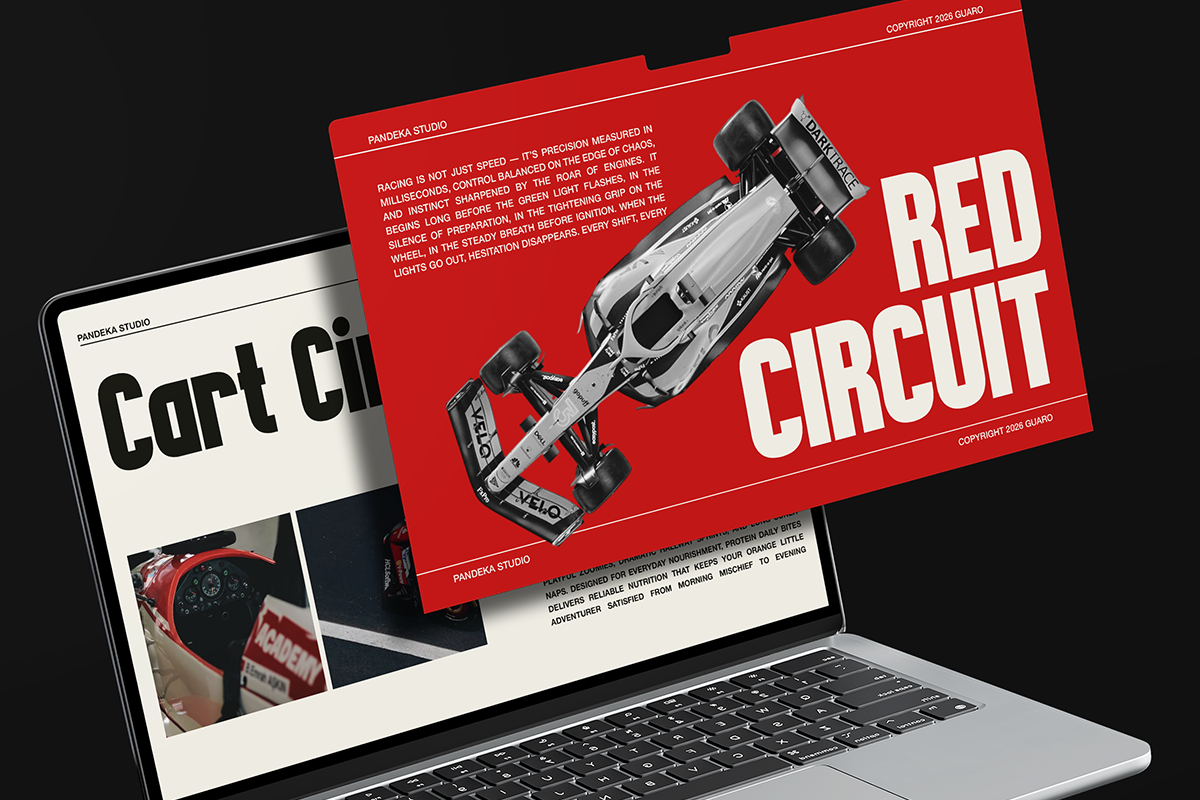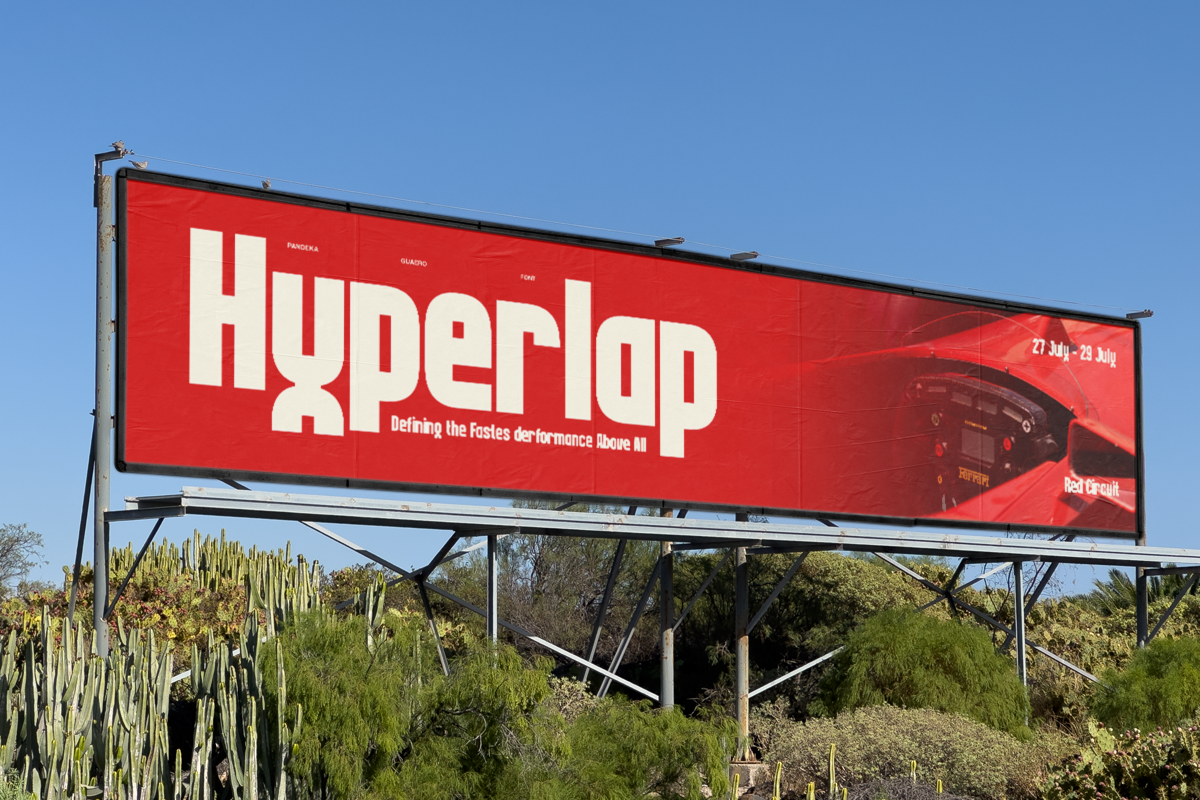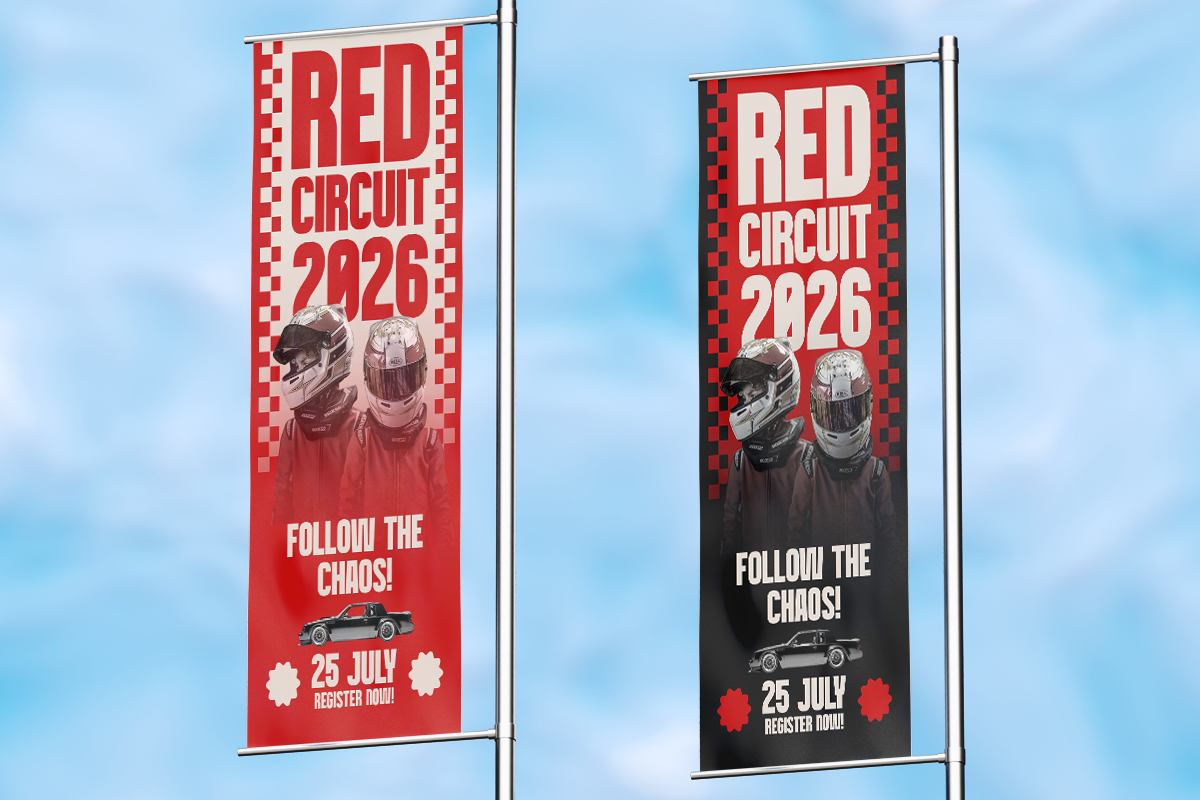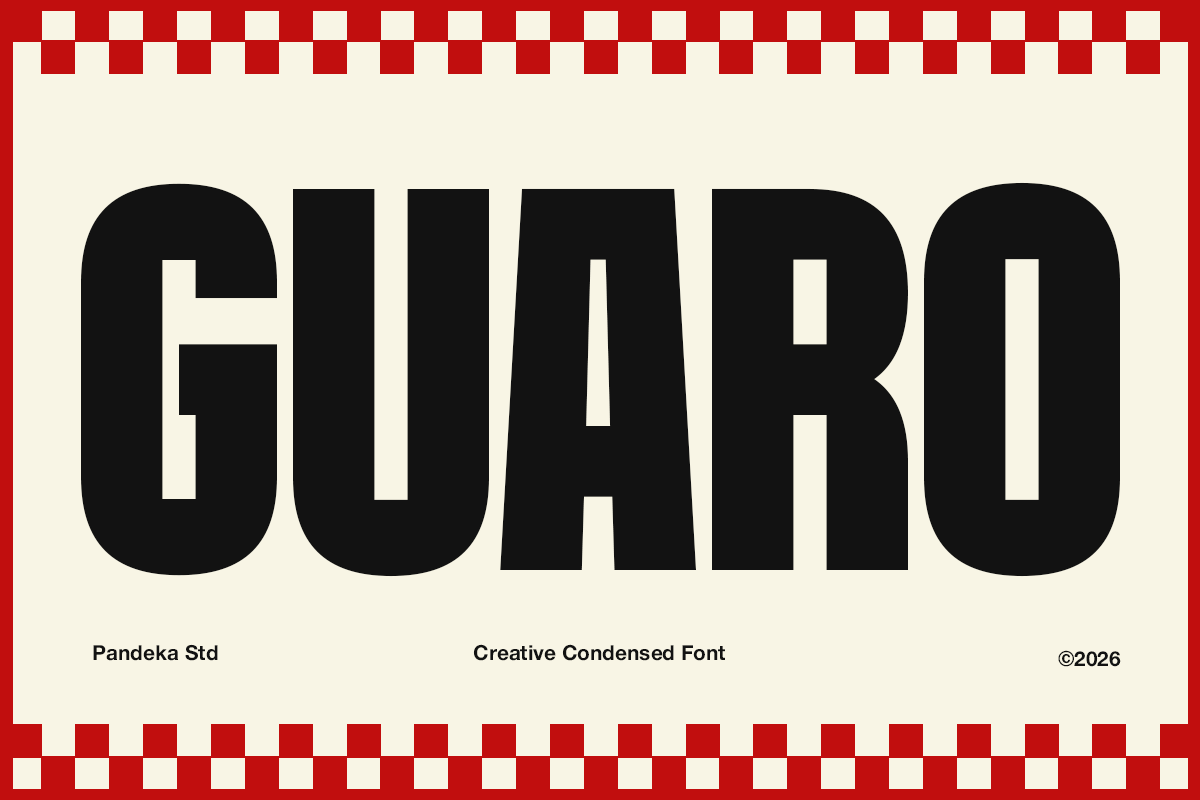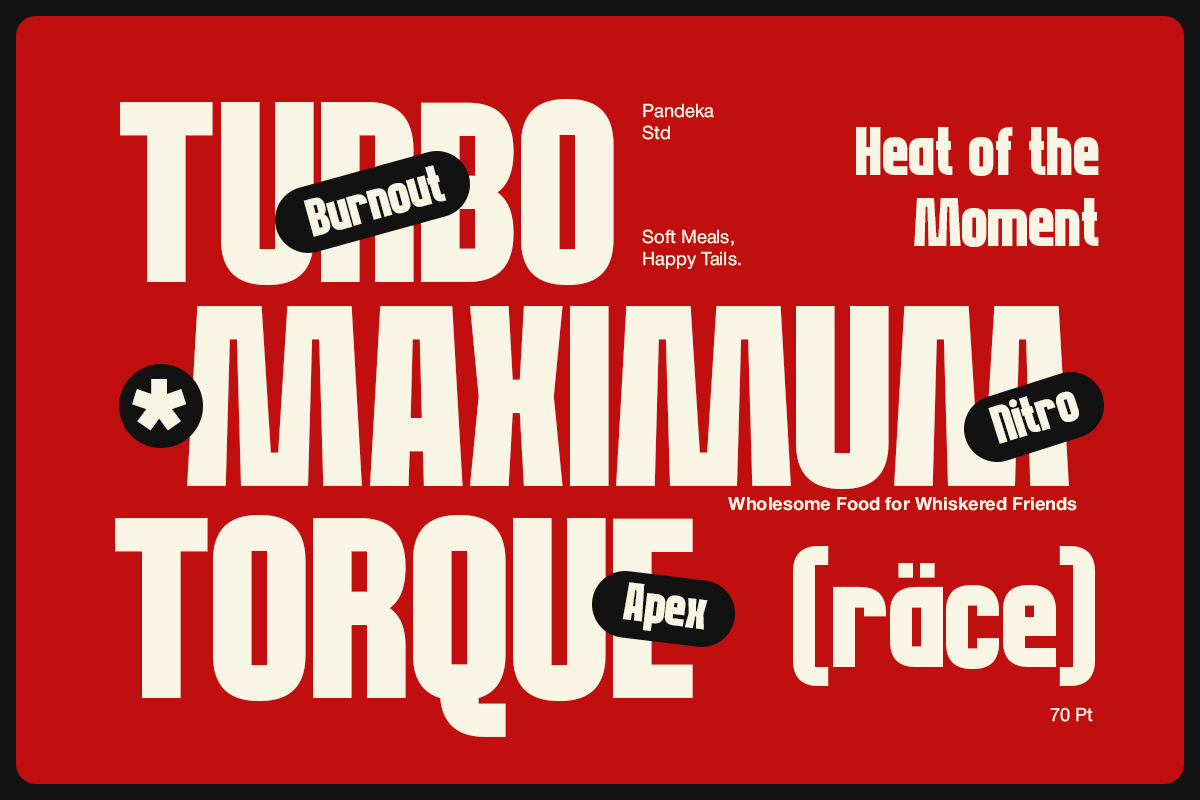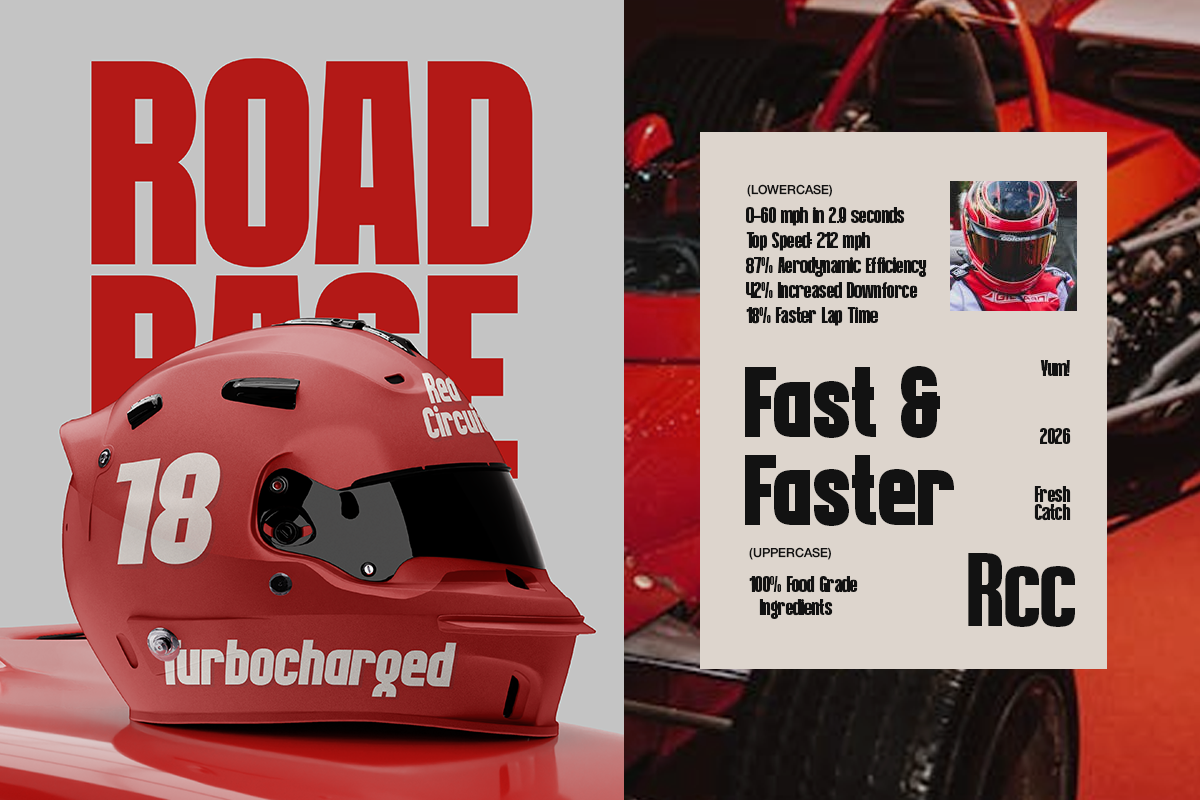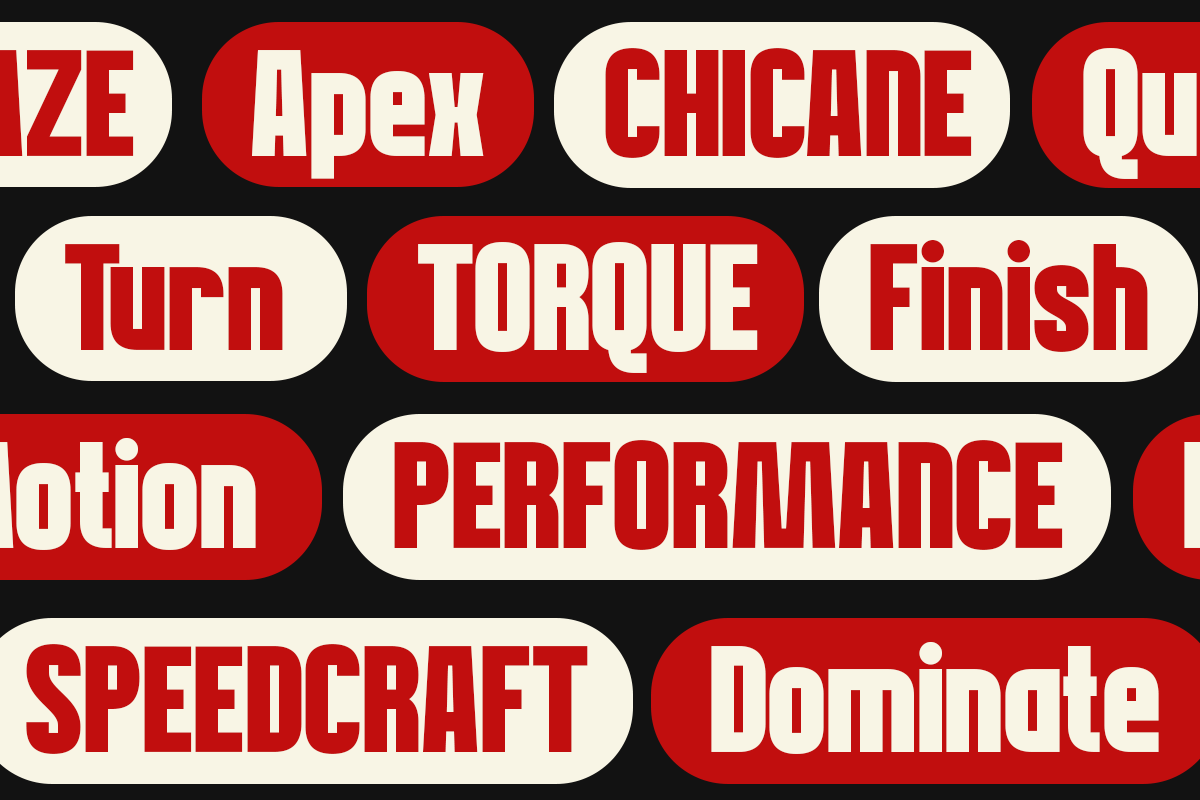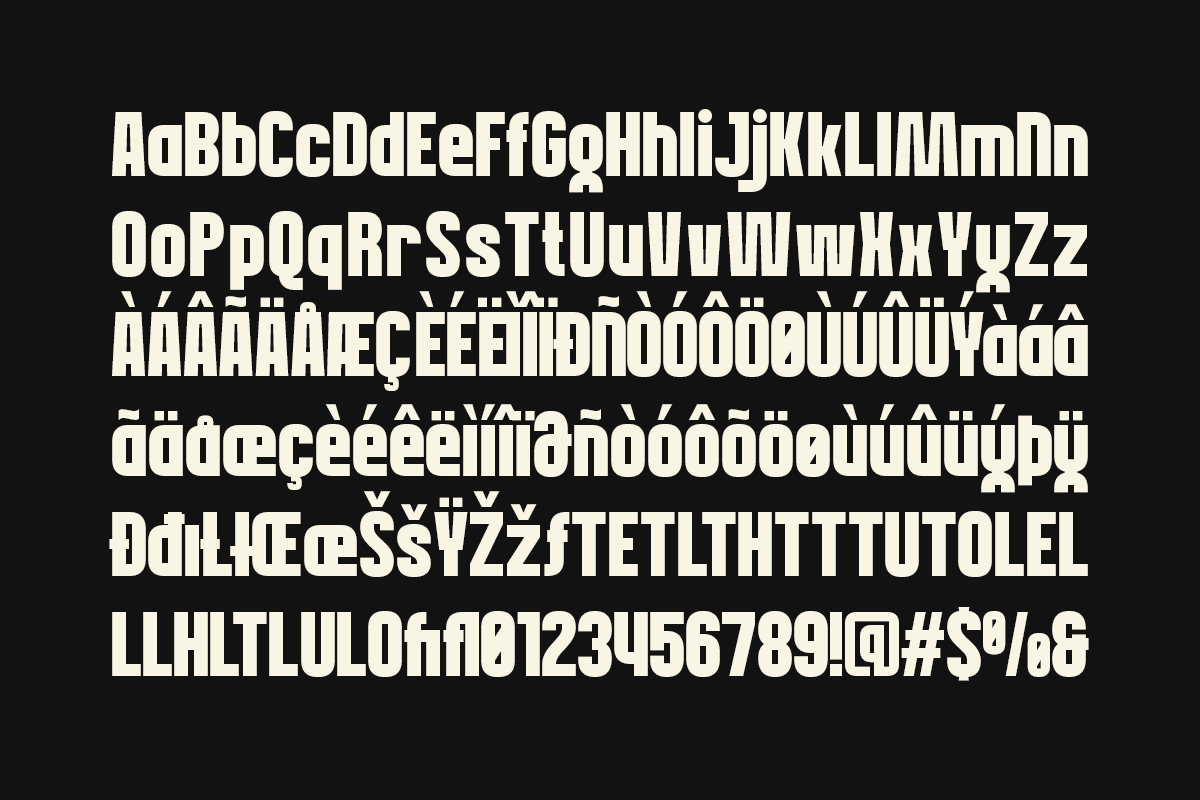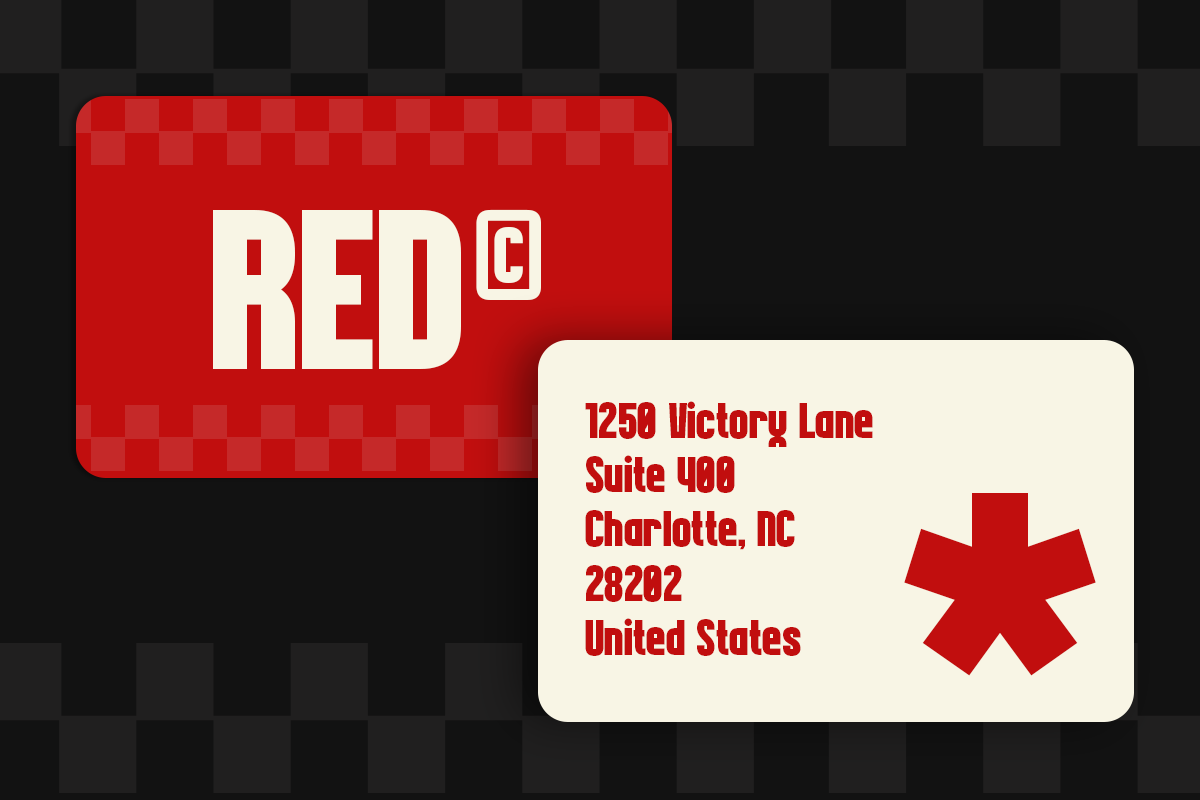
Guaro - Bold Sport Condensed Font
Guaro is a bold sport condensed font designed to deliver maximum impact and high-energy visuals. With its tall proportions, compact structure, and strong letterforms, it creates a powerful and dynamic look, perfect for designs that need speed, strength, and confidence.
Available in 1 style: Regular, Guaro includes uppercase & lowercase letters, numbers, punctuation, and multilingual support. Its condensed form makes it ideal for racing themes, automotive branding, sports posters, event banners, merchandise, headlines, and bold promotional materials.
- Full Character Set: Uppercase, lowercase, numbers, symbols, and punctuation